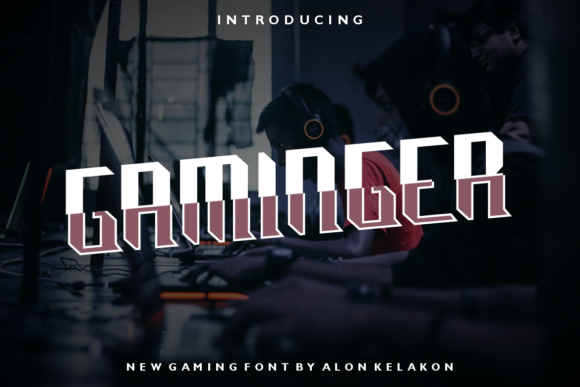
Gamingers Bold and Stylish Font
Gaminger is a striking display font that combines boldness with a thick, eye-catching design. It's ideal for anyone looking to make a strong visual statement in their projects. Whether you're designing a logo, creating t-shirt art, or working on sports-related graphics, Gaminger adds a modern and confident look.
What Makes Gaminger Unique
Gaminger stands out due to its thick lettering and clean lines. The font has a strong presence that commands attention, making it perfect for headlines, banners, and other high-impact designs. Its bold style gives it a contemporary feel that works well in both digital and print formats.
The font's structure is designed to be readable even at larger sizes, which makes it great for signage, posters, and branding materials. It also has a versatile character set that includes uppercase letters, numbers, and symbols, allowing for creative flexibility in different applications.
Why Gaminger Is a Great Choice
If you're working on a project that needs a strong visual identity, Gaminger can help. Its bold nature makes it ideal for logos that need to stand out. For example, a startup business might use Gaminger for its brand name to create a memorable and professional image.
For t-shirt printing, Gaminger can add a stylish edge to graphic designs. A sports team might use it on their merchandise to give a powerful and unified look. In sport designs, the font's thickness and clarity can enhance the overall aesthetic of uniforms, banners, or promotional materials.
Practical Uses for Gaminger
Gaminger is not limited to just logos and t-shirts. It can be used in a variety of contexts, including website headers, social media posts, and advertising campaigns. Its strong appearance makes it a good choice for any project that requires a clear and impactful message.
For educators or presenters, Gaminger can be useful in creating visually engaging slides or handouts. Its bold style helps draw attention to key points, making it easier for audiences to focus on important information.
When to Use Gaminger
Consider using Gaminger when you want to emphasize a message or create a strong visual identity. It's especially effective in situations where the text needs to be easily readable from a distance, such as in signage or large-format prints.
However, it's important to note that Gaminger may not be the best choice for body text in long documents. Its thick and bold style works best as a headline or accent font rather than for extended reading.
How to Incorporate Gaminger Into Your Work
When using Gaminger, consider pairing it with simpler fonts for balance. For example, a clean sans-serif font could work well alongside Gaminger for body text or supporting details. This contrast helps maintain readability while still highlighting the boldness of Gaminger.
Things to Consider Before Using Gaminger
Before choosing Gaminger, think about the context in which it will be used. Does it fit the tone and purpose of your project? For instance, a more formal business might prefer a different font for its branding, while a creative or youthful brand could benefit from Gaminger's energetic style.
Real-World Examples of Gaminger in Action
A local cafรฉ might use Gaminger for its menu board to create a bold and inviting look. A music festival could use it on promotional posters to grab attention and convey energy. A fitness brand might incorporate it into its logo to reflect strength and determination.
Even in personal projects, Gaminger can add a unique touch. For example, someone creating a custom birthday card could use it to make the message stand out and feel more special.
Final Thoughts on Gaminger
Gaminger is a versatile and powerful font that can elevate a wide range of design projects. Its bold and thick characteristics make it ideal for any situation where a strong visual impact is needed. Whether you're a designer, marketer, or hobbyist, Gaminger offers a fresh and dynamic option for your creative work.
By understanding how to use it effectively, you can make the most of its distinctive style and bring your ideas to life with confidence and flair.